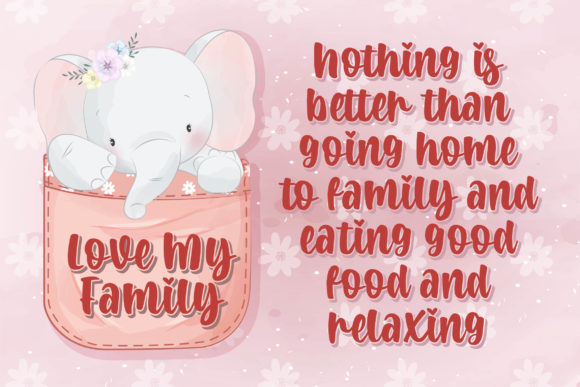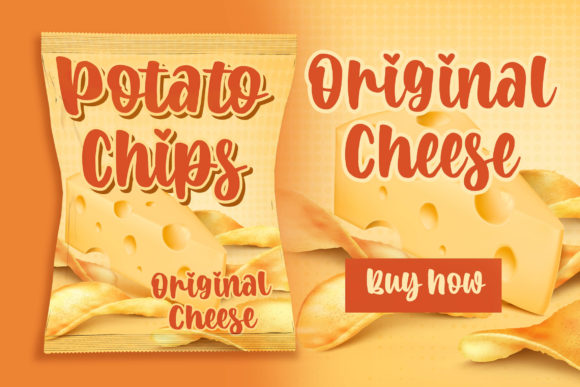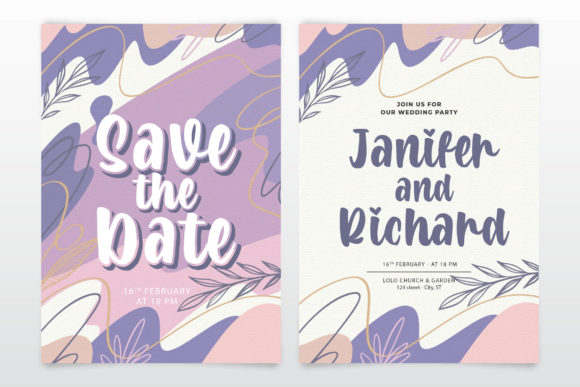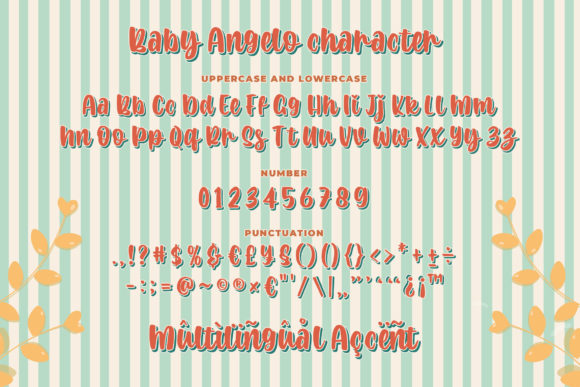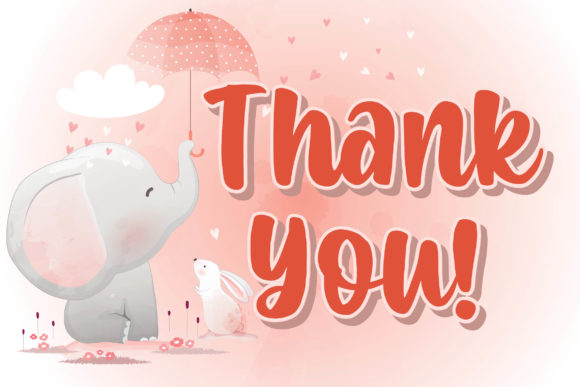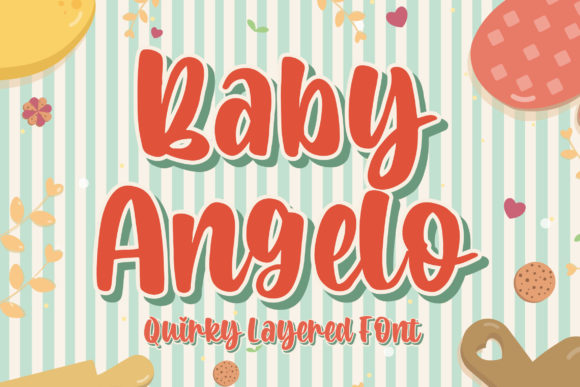
Baby Angelo Font: Elevate Your Design with Classic Elegance
In the world of typography, few fonts manage to strike a balance between classic sophistication and modern flair. Baby Angelo Font is one such typographic marvel that has captured the hearts of designers and crafters alike. Inspired by the timeless elegance of classic typography, Baby Angelo brings its own unique style to the table, making it an indispensable asset for any design project.
The Birth of Baby Angelo
Baby Angelo’s story begins with a passion for typography and a desire to create something that stands out in the digital age. This script font is not just a collection of letters; it’s an expression of artistry and a nod to the classic typographic styles that have shaped the design industry. With its roots in traditional typography, Baby Angelo has evolved to meet the demands of modern design, making it versatile and highly adaptable.
Key Features of Baby Angelo Font
- Versatility: One of the standout features of Baby Angelo is its incredible versatility. This font is designed to excel in various applications, from headlines and titles to longer blocks of text. Its adaptability makes it a go-to choice for designers working on a wide range of projects.
- Elegant Script: Baby Angelo boasts an elegant script that adds a touch of sophistication to any design. Its flowing lines and carefully crafted letterforms make it perfect for creating visually appealing text that captures the reader’s attention.
- Variable Font Styles: Understanding the need for flexibility in design, Baby Angelo comes with variations that can be used to create maximum and minimum visual impacts. This feature allows designers to experiment with different styles, ensuring their work always stands out.
- Legibility: Despite its elegant and script nature, Baby Angelo does not compromise on legibility. It remains clear and readable even at smaller sizes, making it suitable for use in various contexts, from digital screens to print materials.
Applications of Baby Angelo Font
The applications of Baby Angelo Font are vast and varied. Here are a few areas where it truly shines:
- Web Design: For web designers, Baby Angelo offers a way to add a professional and elegant touch to website headers, titles, and even body text. Its legibility on digital screens makes it a favorite among web typography enthusiasts.
- Print Design: In print, Baby Angelo can elevate business cards, brochures, posters, and any other material that requires a sophisticated look. Its classic inspiration ensures it pairs well with a variety of design elements.
- Motion Graphics: For motion graphics and video content, Baby Angelo provides a stylish and consistent look that enhances the visual appeal of the content. Its clear and elegant script ensures readability even in fast-paced environments.
- Crafting and DIY Projects: Beyond professional design, Baby Angelo can also be used in crafting and DIY projects. Whether it’s for making personalized gifts, decorations, or art pieces, this font adds a touch of elegance and professionalism.
Tips for Using Baby Angelo Font
To make the most out of Baby Angelo, consider the following tips:
- Mix and Match: Don’t be afraid to experiment with different variations of Baby Angelo. Mixing and matching different styles within the font family can add depth and interest to your design.
- Pair it Wisely: When pairing Baby Angelo with other fonts, choose ones that complement its elegance. A sans-serif font for body text or a bold serif for headings can create a striking contrast.
- Adjust Kerning and Spacing: For optimal readability, especially in longer texts, pay attention to kerning and spacing. Adjusting these elements can make a significant difference in how your text is perceived.
Baby Angelo Font is more than just a typographic style; it’s a tool that can transform your design projects with its classic elegance and modern versatility. Whether you’re a professional designer or a crafting enthusiast, Baby Angelo offers a way to add sophistication and flair to your work. With its wide range of applications and ease of use, it’s no wonder that Baby Angelo has become a favorite among typography lovers. So, the next time you’re looking to elevate your design, consider giving Baby Angelo a try – it might just be the perfect fit for your next project.